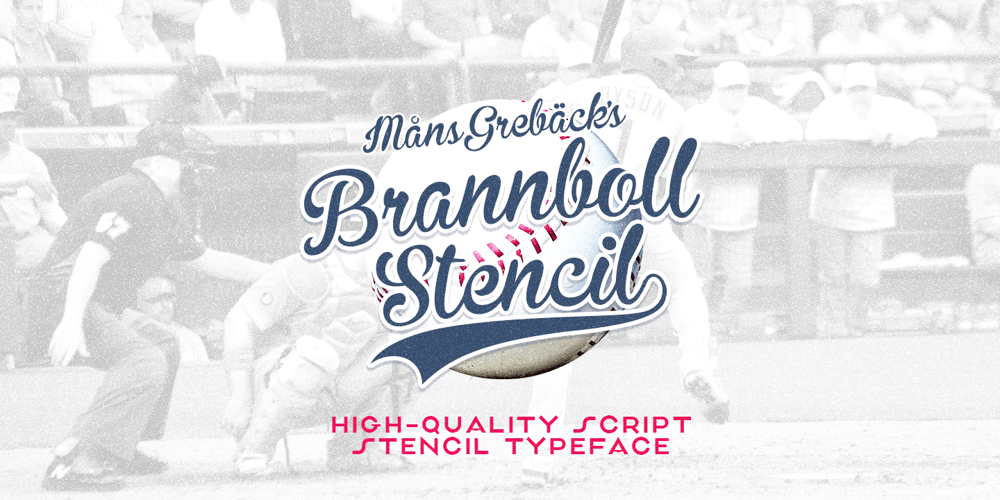
Brannboll Stencil Font Family was designed by Måns Grebäck and published by Mans Greback. Brannboll Stencil contains 2 styles and family package options. Brannboll Stencil is a script sport typeface.The baseball-style lettering was drawn by Mans Greback in 2020.It is a specialist stencil typeface, created primarily for laser cutters:All whitespaces are connected with the background, making it a lettering perfect for signs, jewellery, stencils and general cutting. It also comes with the additional, decorative style Brannboll Stencil Swash, which contains ten cool swashes to give the graphic extra expression. It has a very extensive lingual support, covering all European Latin scripts.The font contains all characters you’ll ever need, including all punctuation and numbers.